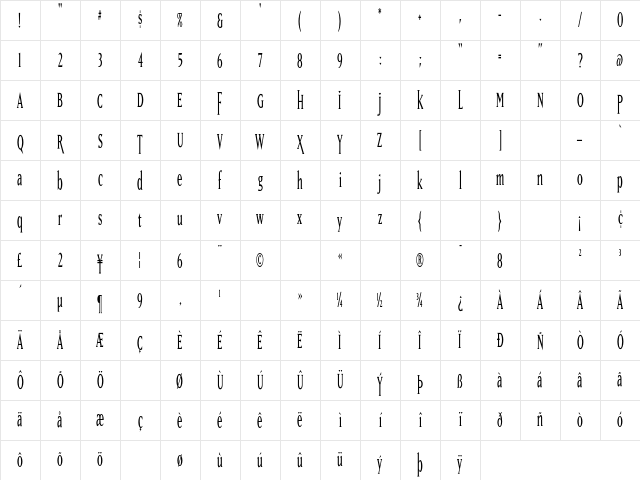
Complete MatrixTall Medium glyph index. Displaying only characters natively supported by MatrixTall Medium font.
MatrixTall is a composed and adaptable typeface that performs quietly and consistently across a wide range of design contexts.
Who designed the MatrixTall Medium font?
This font was published by Copr. Emigre Graphics. Check the technical specs section for copyright and designer details.